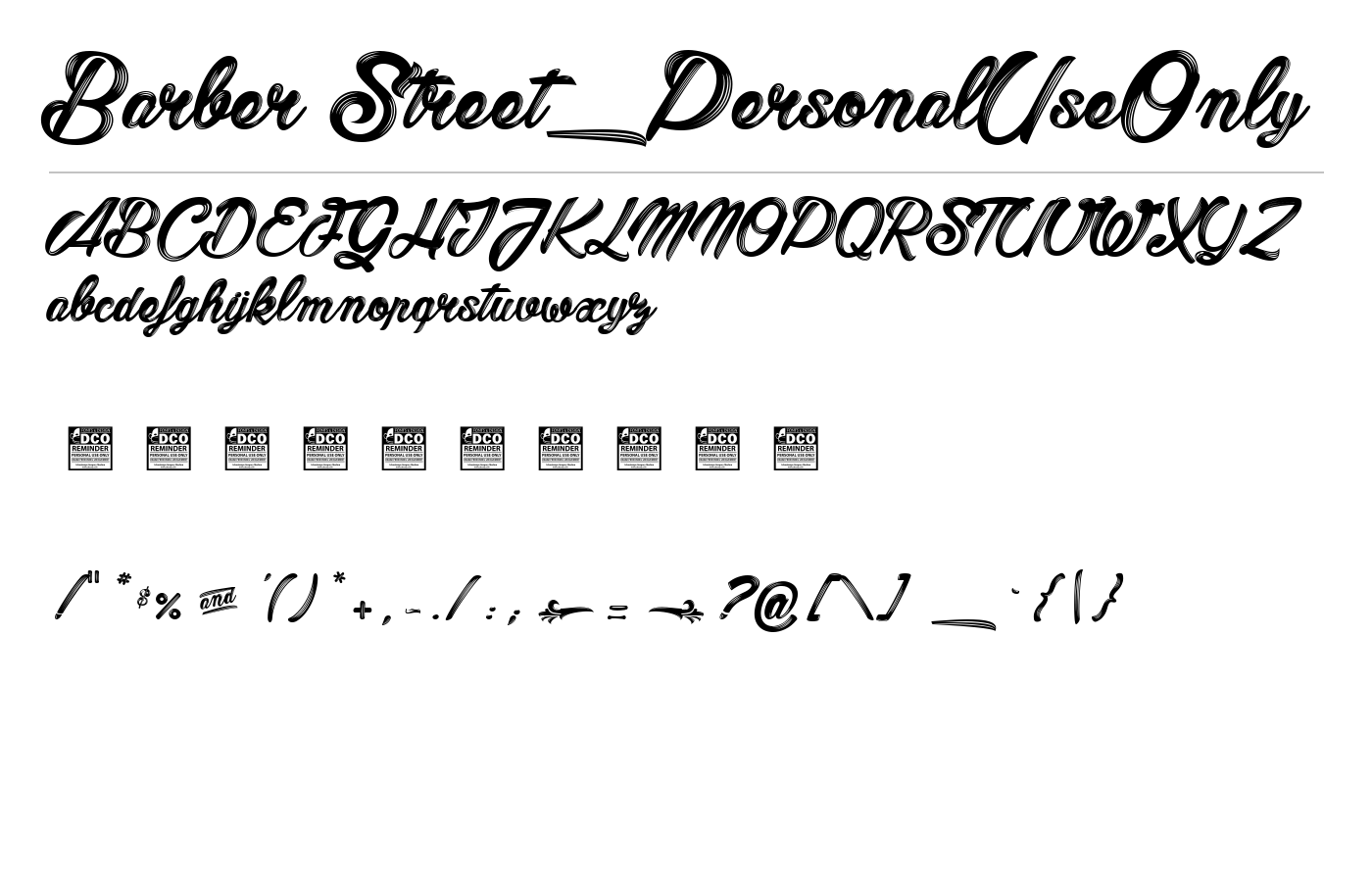
Barber Street is a stylish script font that combines bold, flowing strokes with a vintage flair, making it both elegant and eye-catching. Its thick and thin contrast, along with smooth curves and distinctive letterforms, gives it a classy yet approachable personality ideal for branding, logos, and packaging that seek a handcrafted or retro vibe. This font works especially well for fashion, lifestyle, and creative projects where a sophisticated but friendly look is desired.
Barber Street_PersonalUseOnly Font
About Barber Street_PersonalUseOnly Font
| Font family | Barber Street_PersonalUseOnly Font |
| Designer | Gregory Medina ©dcodesign |